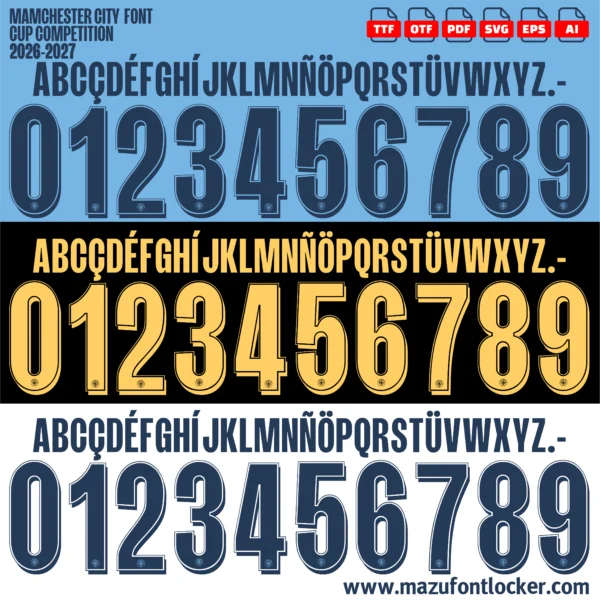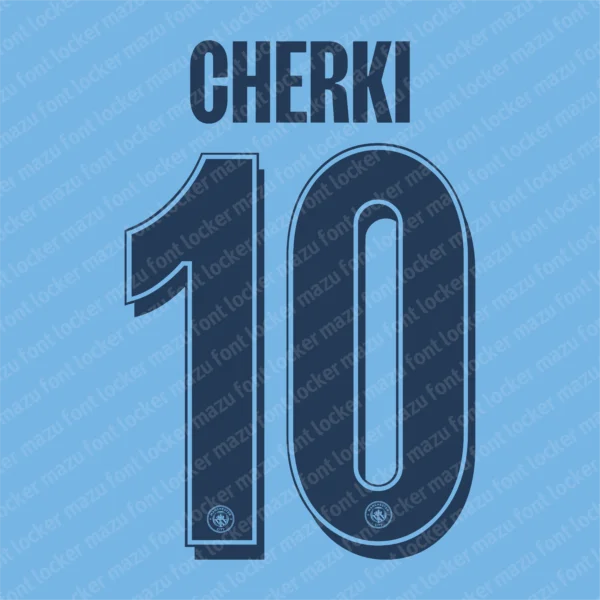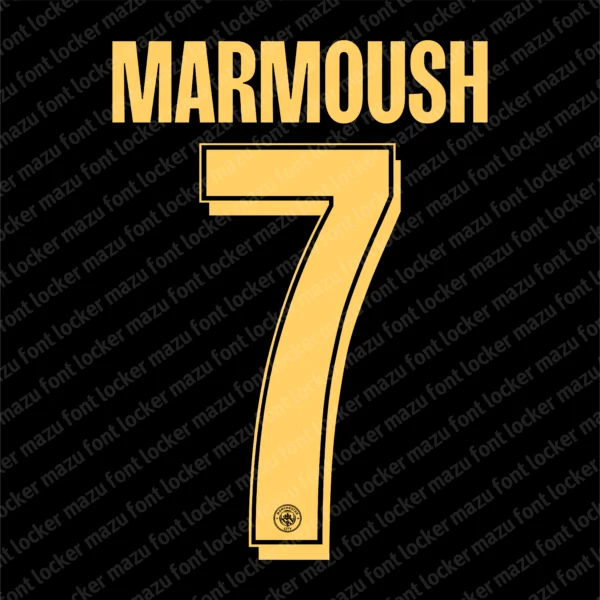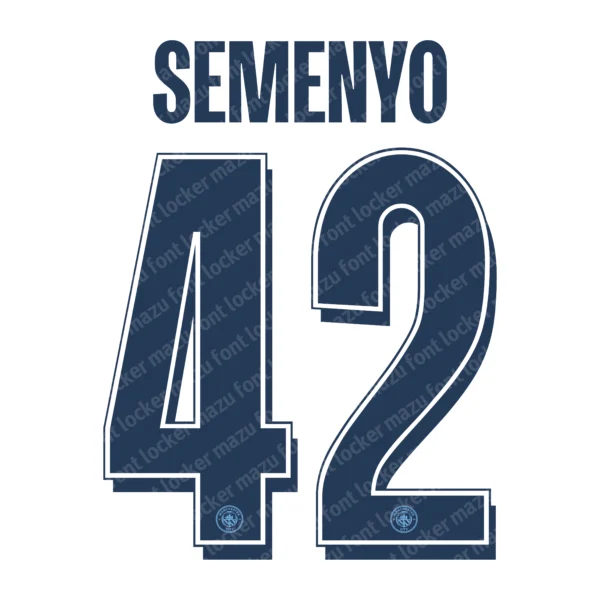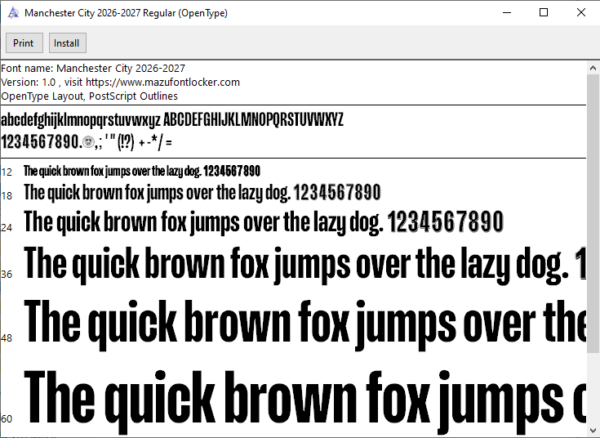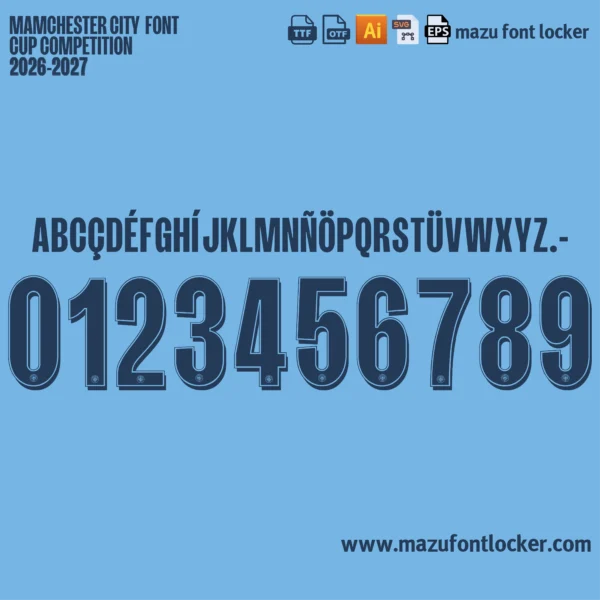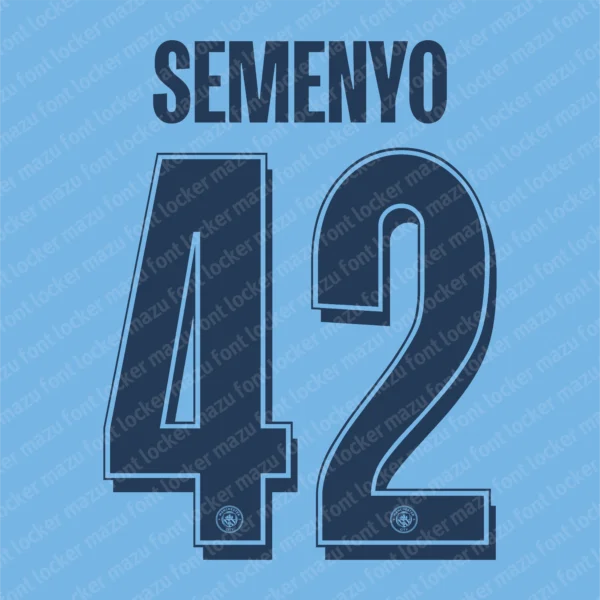
Manchester City 2026-2027 Font Vector – Epic Sky Blue Citizens Masterpiece
Manchester City 2026-2027 Font Vector – Authentic Sky Blues Typeface
The Manchester City 2026-2027 Font Vector is a premium typeface that accurately recreates the official match lettering worn by Manchester City during the 2026-2027 Premier League season. This high-quality vector font kit captures the bold, modern, and sleek typography that represents the club’s continued dominance in English and European football.
This font stands out because of its sharp details and strong modern identity. Every letter and number is crafted to match the exact style used on the players’ shirts during the 2026-2027 season. Whether you are making realistic kit templates or dynamic football content, the Manchester City 2026-2027 Font Vector gives your designs that authentic Sky Blues look.
The letterforms in the Manchester City 2026-2027 Font Vector are tall, bold, and highly readable. The strokes have a strong and controlled weight that looks powerful on the back of jerseys while maintaining excellent clarity and contemporary elegance.
The numerals use bold curves and firm edges, giving them a confident and premium appearance. This design ensures great legibility whether used in large print formats, digital mockups, or video content.
- Full uppercase A–Z and numbers 0–9 in authentic Manchester City 2026-2027 style
- Special Manchester City crest glyph for accurate shirt number detailing
- Multilingual Latin character support including diacritics
- Includes the exact crest glyph placement used under player numbers
Manchester City in the 2026-2027 Season